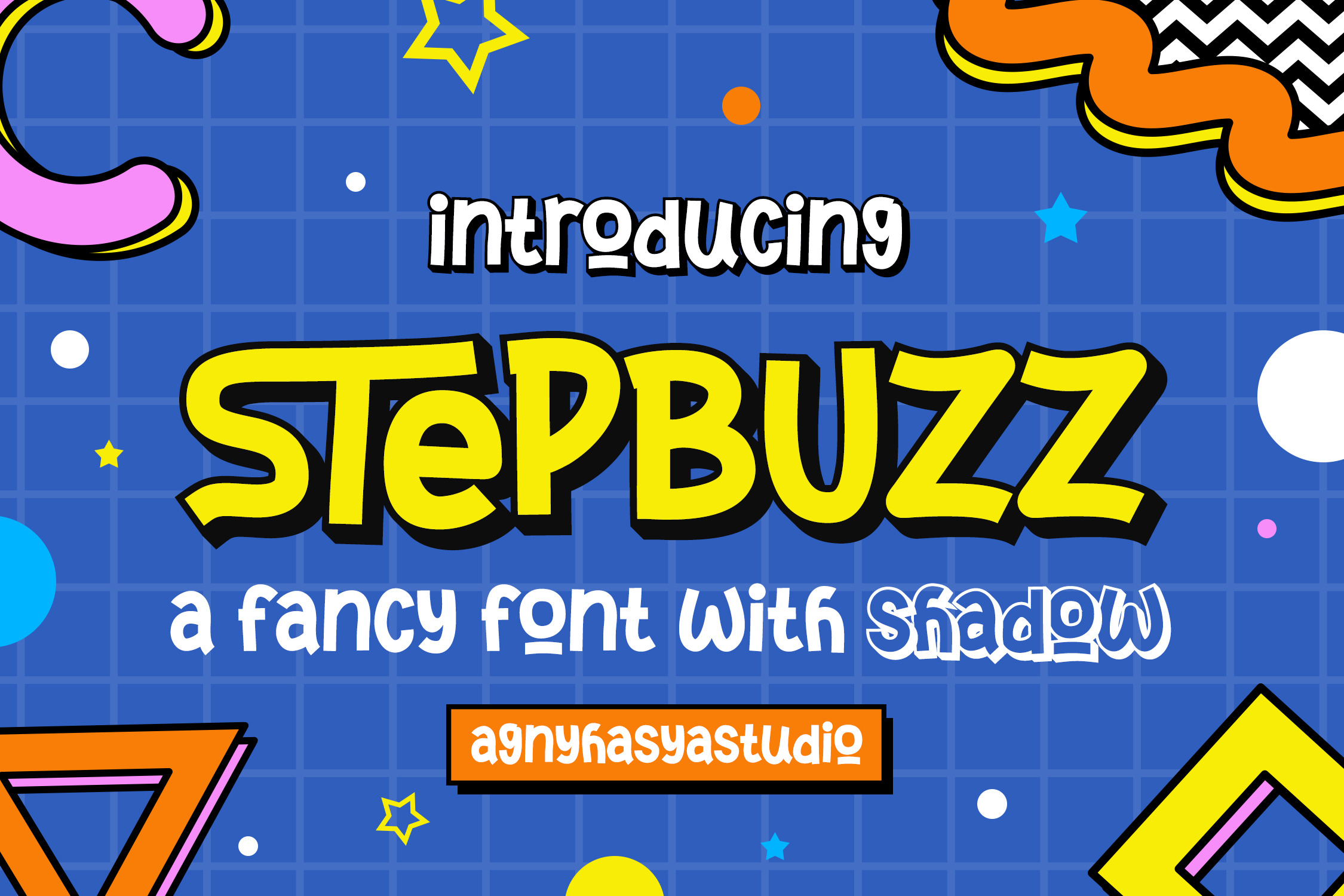
StepBuzz - A Playful Font
Proudly Present StepBuzz - A Playful Font
StepBuzz is a Playful Font, Fancy, and Fun. Come in 2 (two) styles (regular & shadow) and is created with some alternate and ligature.